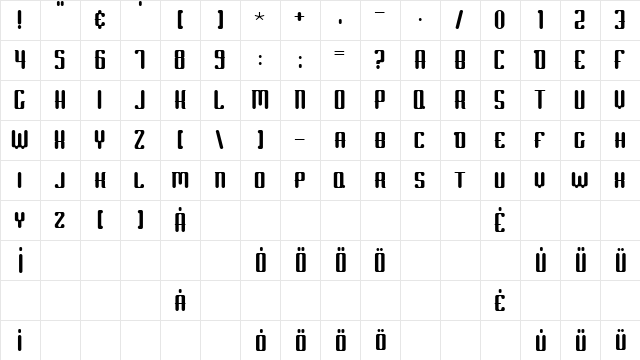
Scum of the Earth Regular
Design Context for Scum of the Earth Typeface
Scum of the Earth is a composed and adaptable typeface that performs quietly and consistently across a wide range of design contexts.